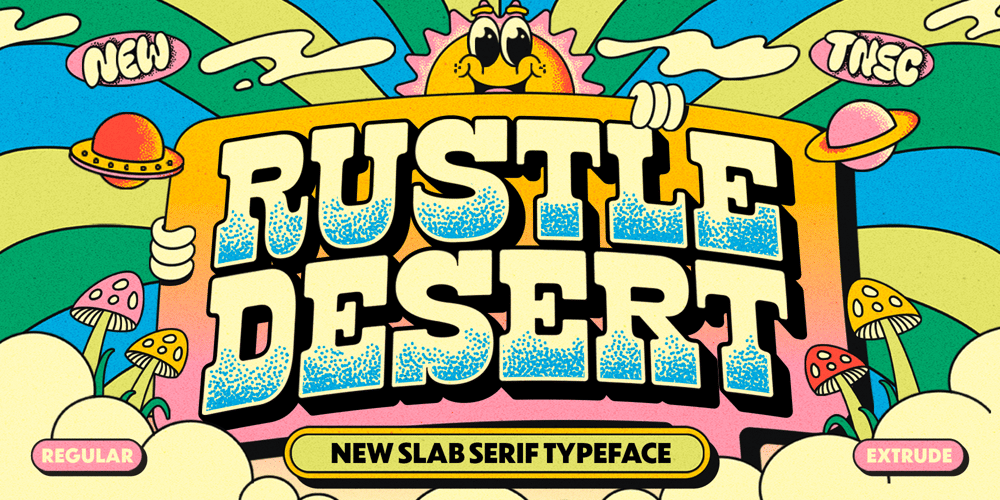
Rustle Desert Font Family was designed by Bagas Ferdiansah, Septianto Nugroho and published by The Native Saint Club. Rustle Desert contains 2 styles and family package options. TNSC Rustle Desert is a slab serif font. The 4th released font from The Native Saint Club. Rustle Desert is inspired by pop design posters from the 80s and 90s. Comes in 2 styles, Regular and Extrude. This font supports multilingual language (support for 89 languages). Rustle Desert is perfect for titles, design posters, logotypes, merchandise, flyers, packaging, and etc. very helpful for communicating your design.